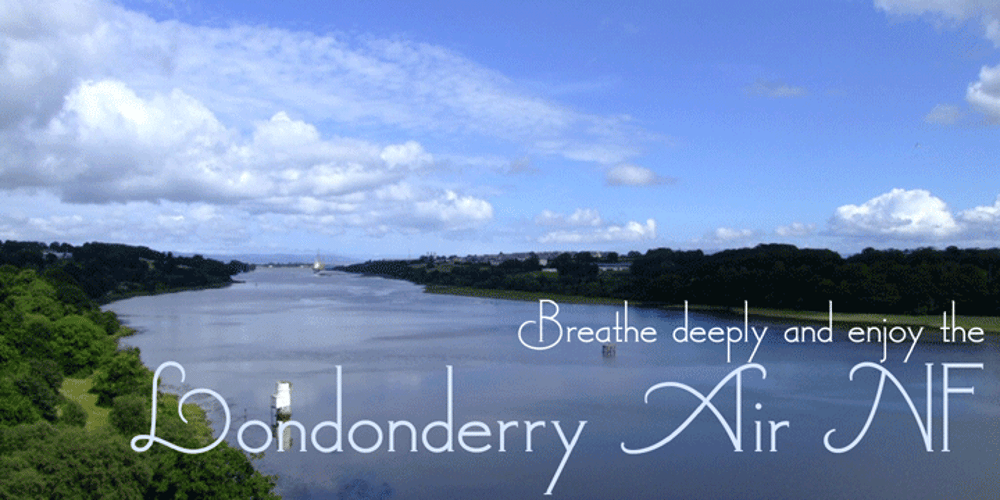
Londonderry Air NF Font Family was designed by Nick Curtis and published by Nick’s Fonts. Londonderry Air NF contains 3 styles and family package options. An elegant face with dashing swash caps, based on an old American Type Founders typeface called Canterbury. The Opentype version of this font supports Unicode 1250 (Central European) languages, as well as Unicode 1252 (Latin) languages.